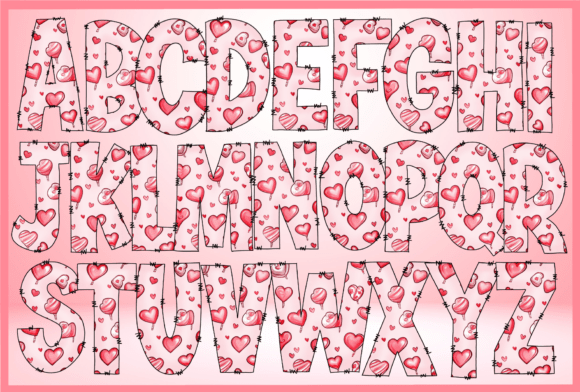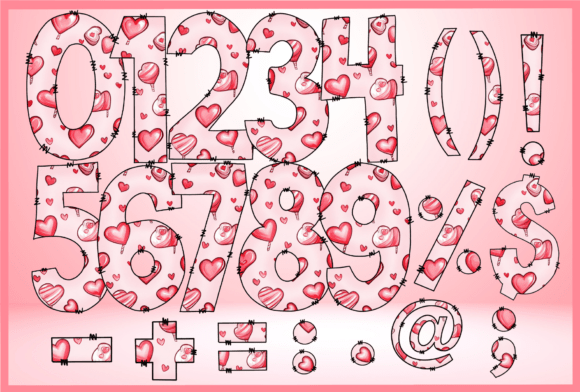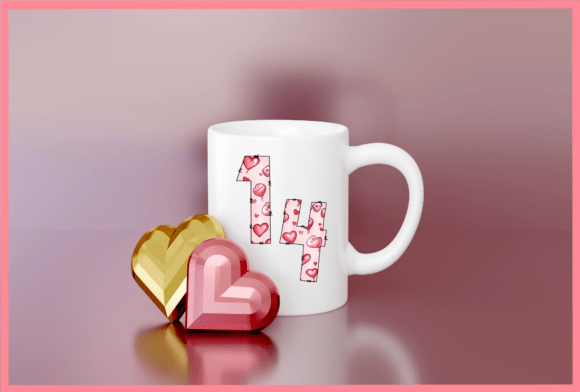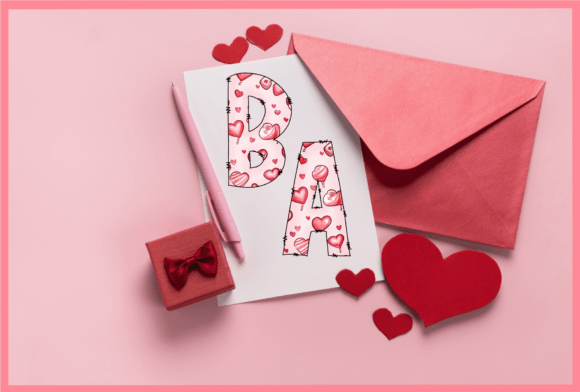
💗 Candy Love Puffy Font – Cute Valentine Alphabet Set 💗
Are you looking for a font that can add a touch of sweetness and charm to your designs? Look no further than the Candy Love Puffy Font! This adorable font features chunky, puffy letters filled with cute heart candy illustrations, perfect for adding a fun, romantic vibe to any creative project.
What Makes Candy Love Puffy Font So Special?
The Candy Love Puffy Font is a playful and eye-catching typeface that is sure to capture the attention of your audience. Its distinctive strokes give it a special, meaningful character that makes it perfect for romantic projects and sweet-themed designs. Whether you’re crafting for the holidays or creating eye-catching social media graphics, this font is sure to bring a smile to people’s faces.
The Perfect Font for Romantic Projects
The Candy Love Puffy Font is ideal for design projects that need a “puffy,” approachable feel. It’s perfect for birthday cards, cake toppers, and creative crafts that require a touch of whimsy and fun. The font’s chunky letters and cute heart candy illustrations make it a great choice for Valentine’s Day designs or romantic calligraphy that needs to dance along the baseline.
Adding a Touch of Luxury to Your Designs
While the Candy Love Puffy Font has a playful and fun vibe, it’s also a versatile choice that can add a luxury spark to your creative endeavors. Its unique and eye-catching design makes it perfect for designers and crafters who want to create high-end designs that stand out from the crowd.
Why Designers and Crafters Love Candy Love Puffy Font
Designers and crafters love the Candy Love Puffy Font for its ability to add a touch of sweetness and charm to their designs. Here are just a few reasons why:
- Playful and eye-catching design: The Candy Love Puffy Font features a playful and eye-catching design that’s sure to capture the attention of your audience.
- Perfect for romantic projects: The font’s distinctive strokes and cute heart candy illustrations make it perfect for romantic projects and sweet-themed designs.
- Versatile: The Candy Love Puffy Font is a versatile choice that can be used for a wide range of design projects, from birthday cards to social media graphics.
Tips and Tricks for Getting the Most Out of Candy Love Puffy Font
Here are just a few tips and tricks for getting the most out of the Candy Love Puffy Font:
- Use it for headings: The Candy Love Puffy Font is perfect for headings and titles, where its playful and eye-catching design can really shine.
- Mix it with other fonts: Mix the Candy Love Puffy Font with other fonts to create a unique and interesting design.
- Experiment with colors: Experiment with different colors and textures to add depth and interest to your design.
- Have fun: Most importantly, have fun and be creative with the Candy Love Puffy Font!
The Candy Love Puffy Font is a fun and playful typeface that’s perfect for designers and crafters who want to add a touch of sweetness and charm to their designs. With its distinctive strokes, cute heart candy illustrations, and versatile design, this font is sure to bring a smile to people’s faces. Whether you’re crafting for the holidays or creating eye-catching social media graphics, the Candy Love Puffy Font is a great choice for any design project.